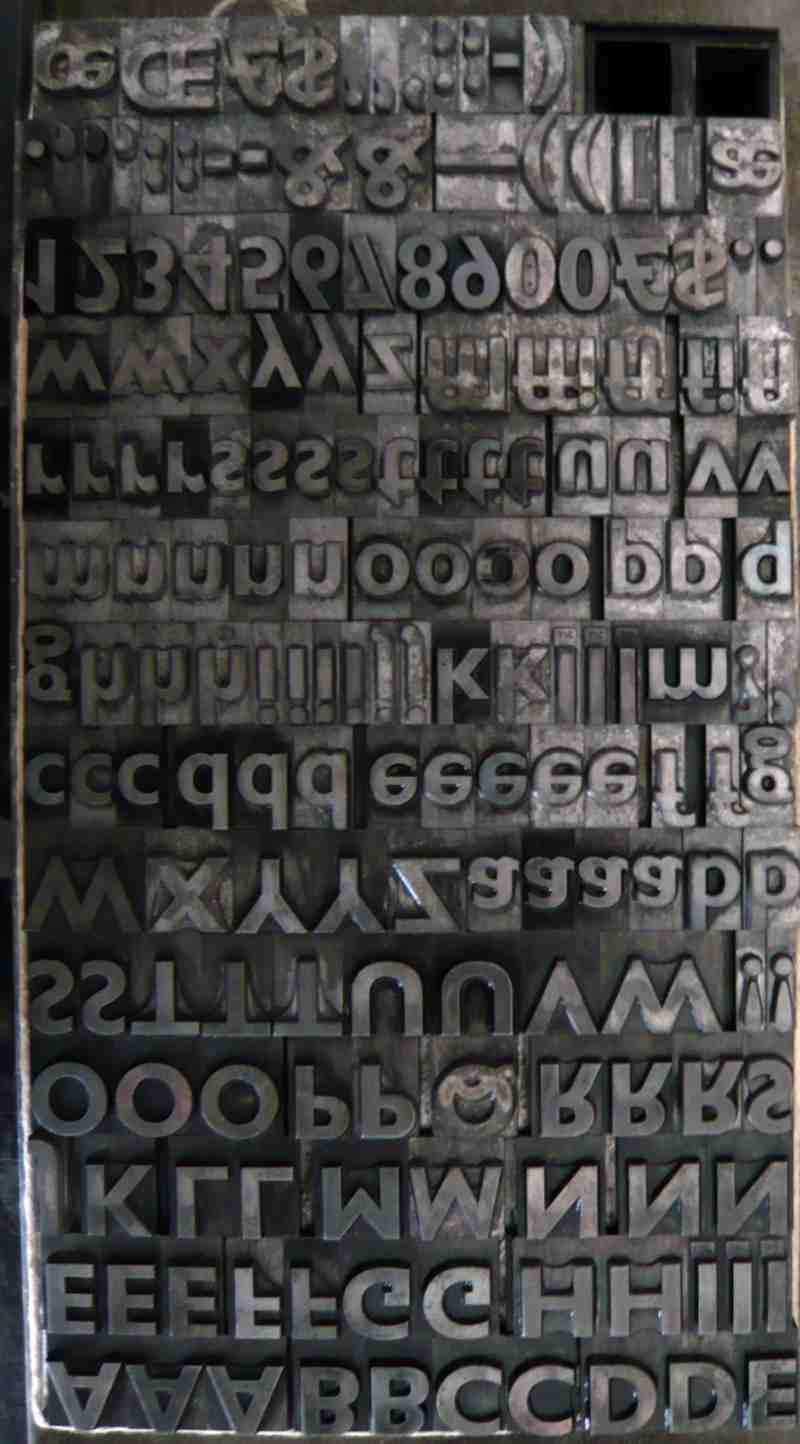
I've been preparing some type that I rescued from Pindar Graphics some time ago.
I've made up this 3A4a font of a 48pt. type, however, the cases were not clearly marked, and I'm not sure what font it is!
The font is  'Gill Sans-serif Bold'  but there are a couple of odd characters in it. The correct  M  is the one with vertical sides, as in the H, the one with splayed sides doesn't belong to the font.  Also the  Q  is the wrong one.